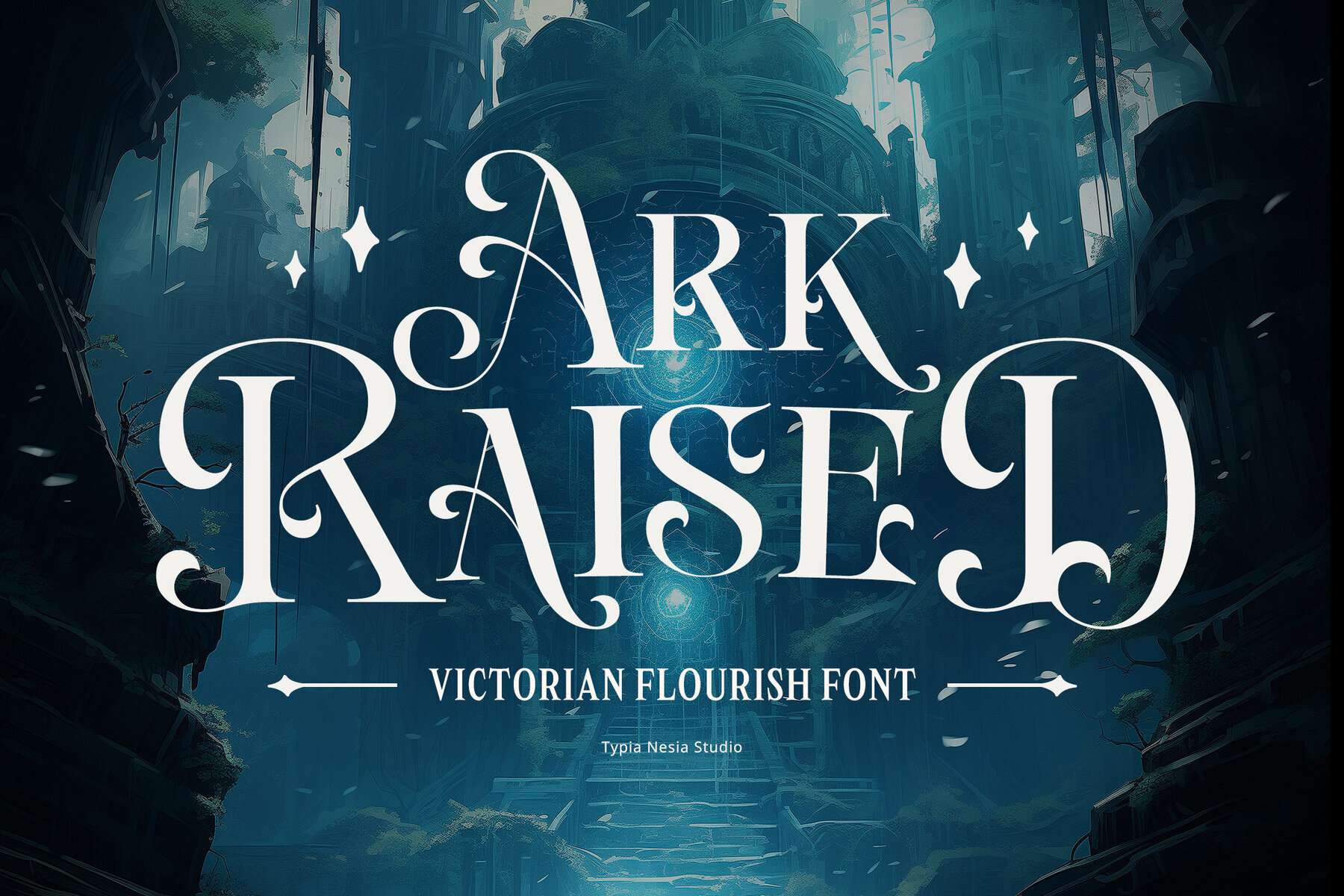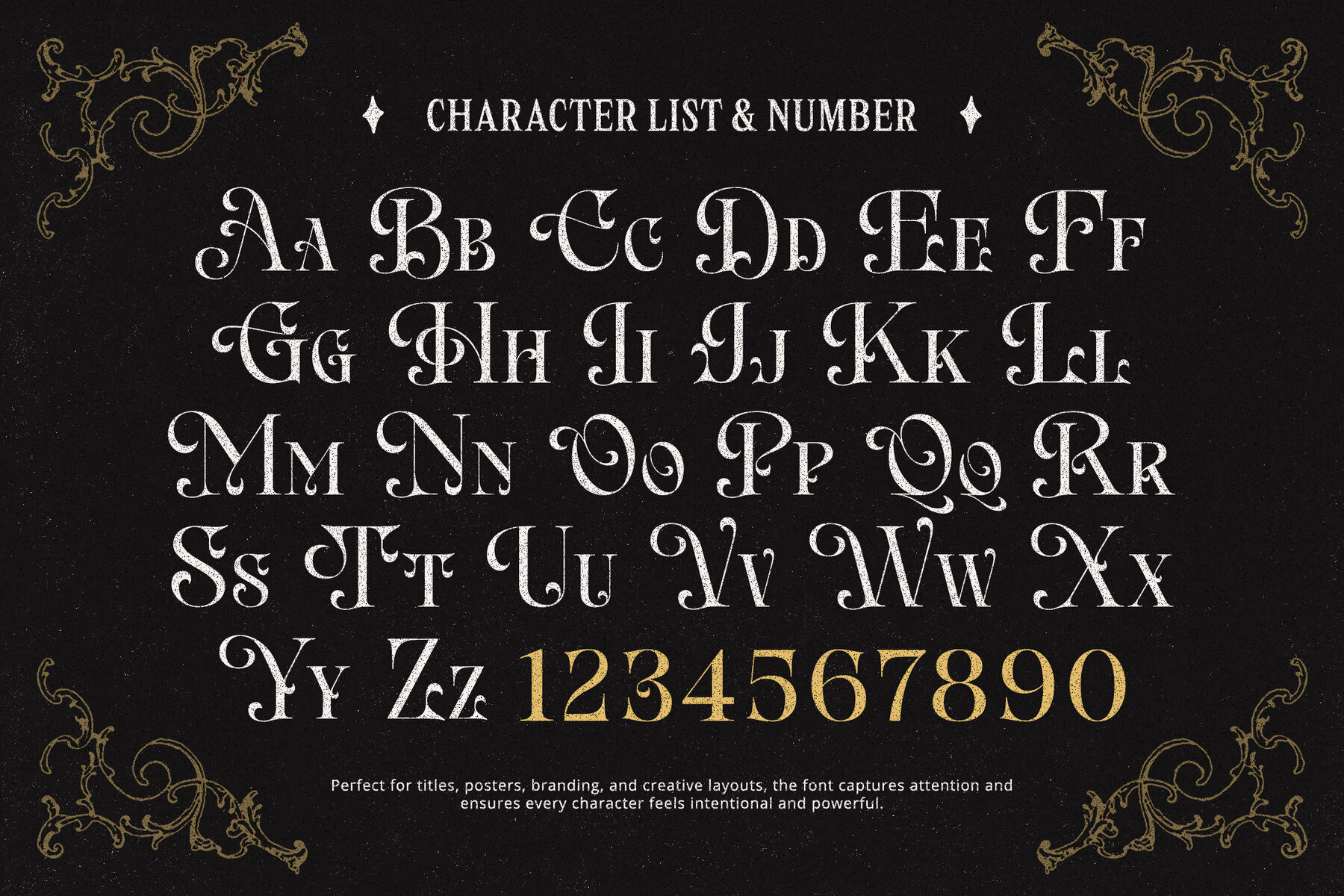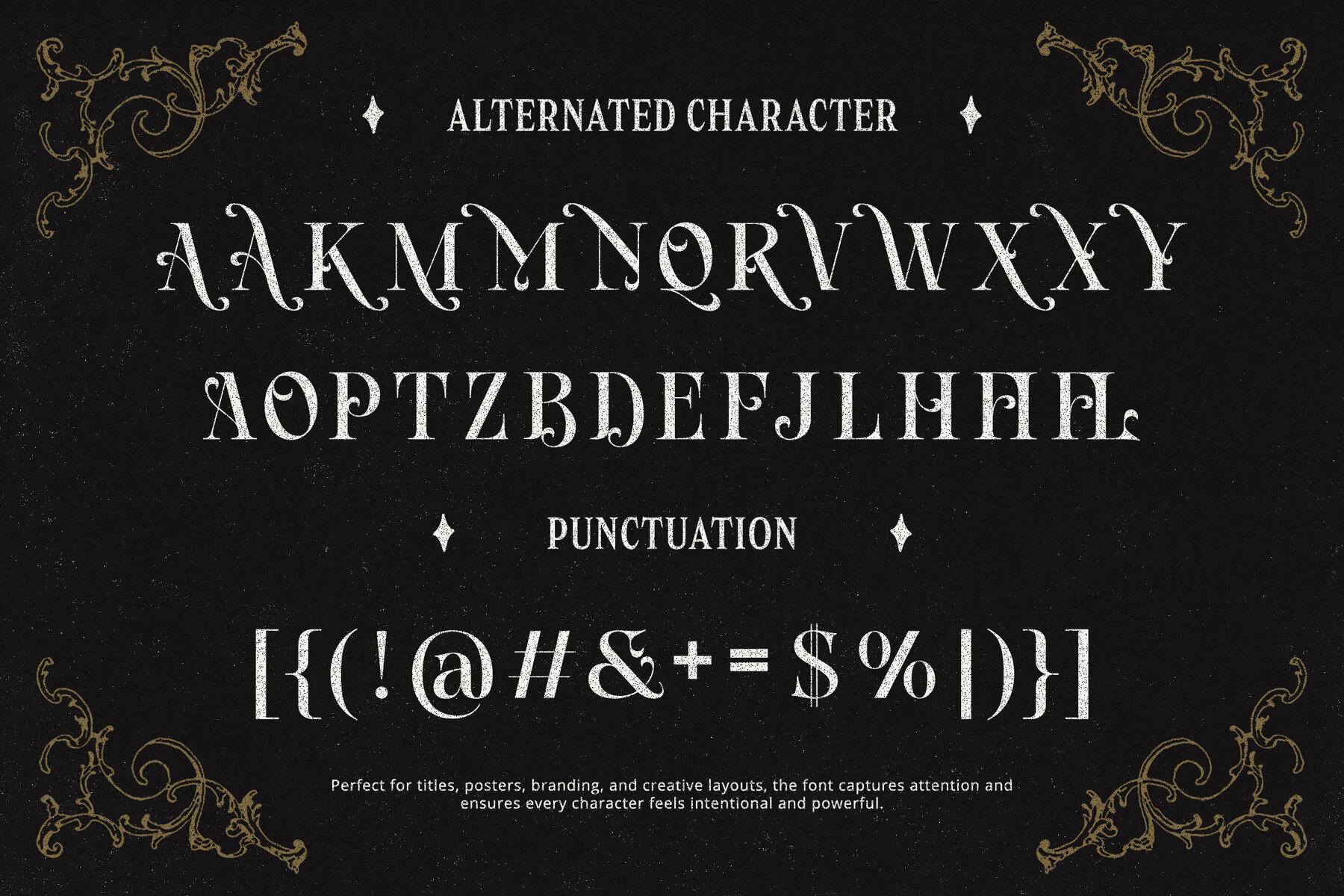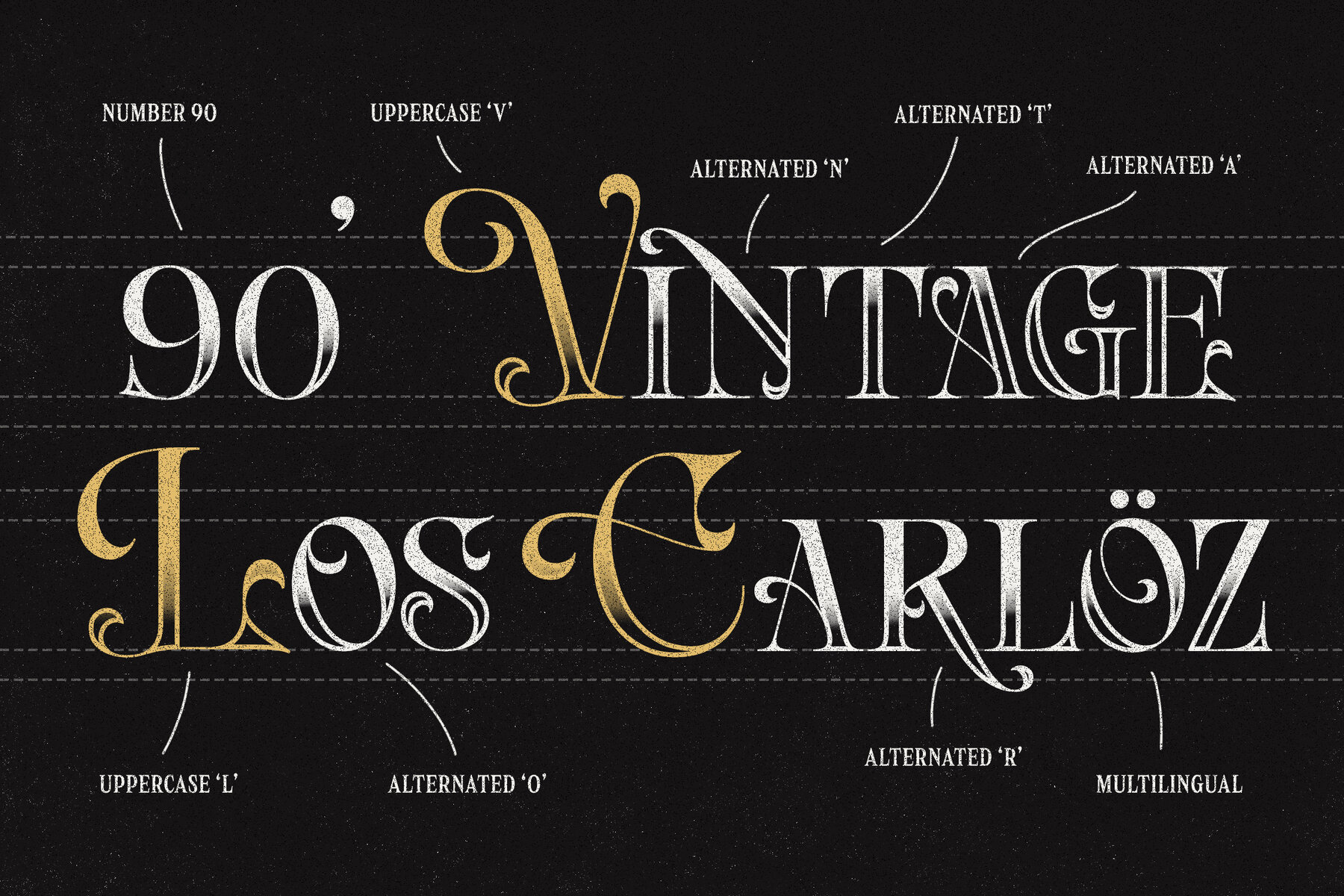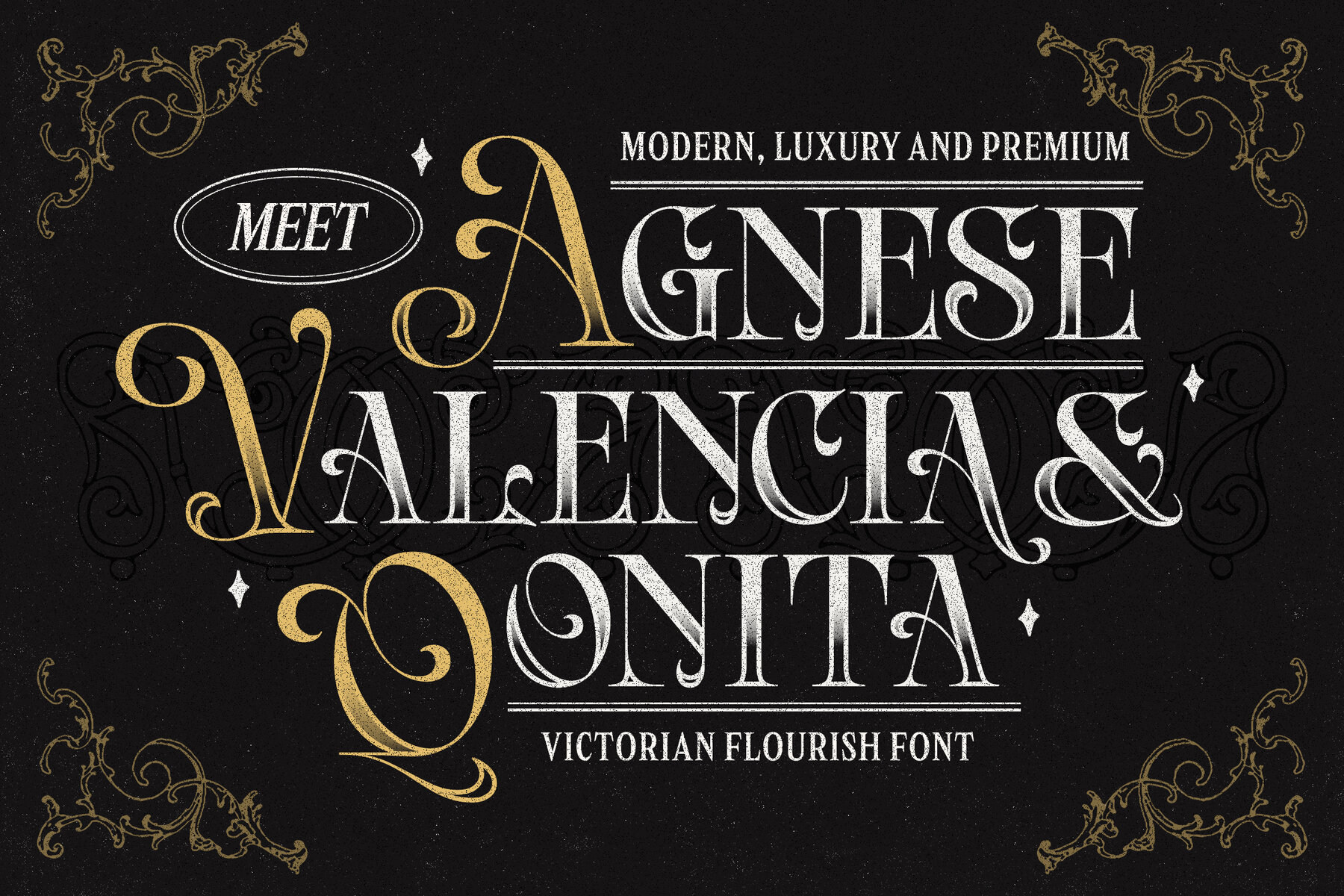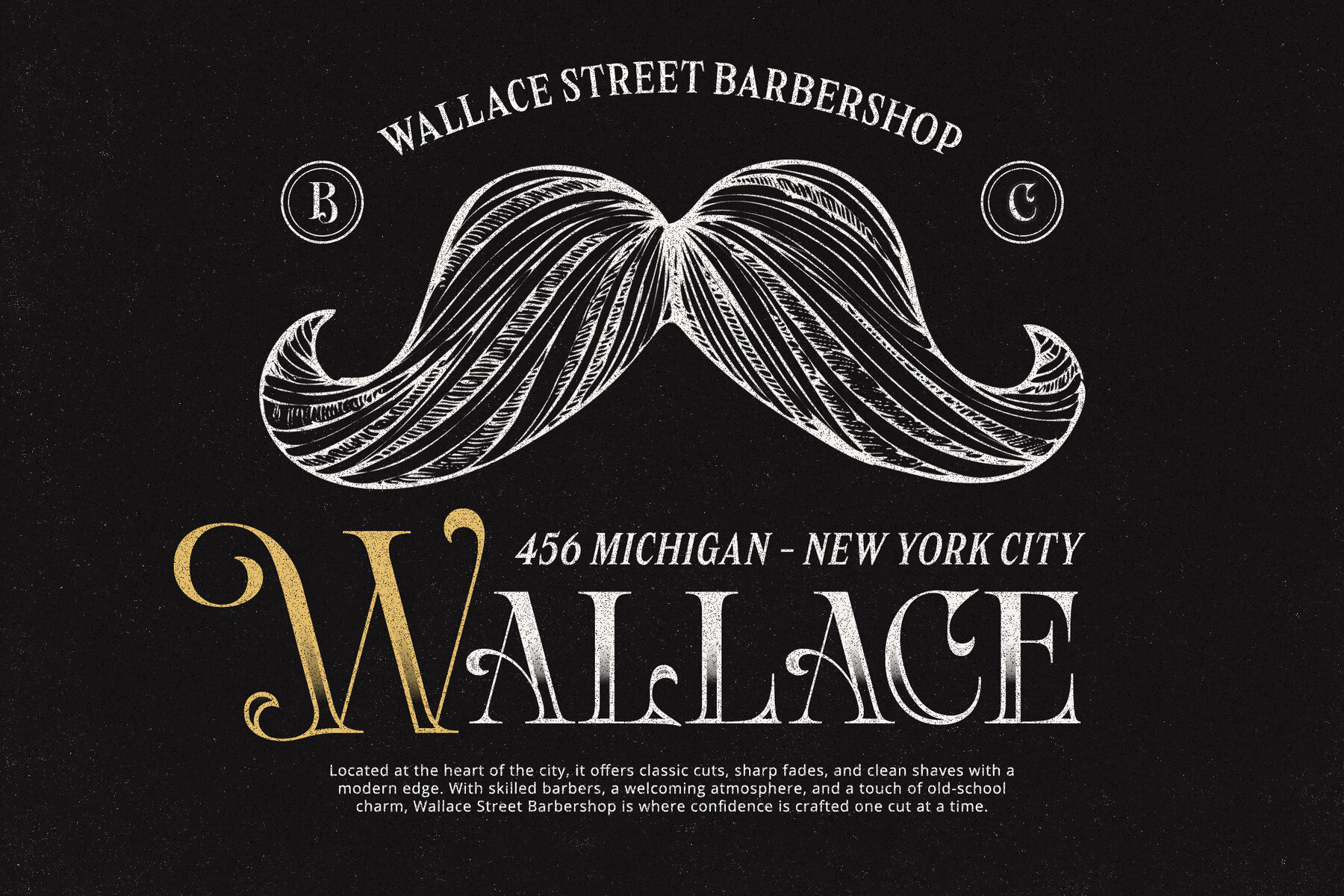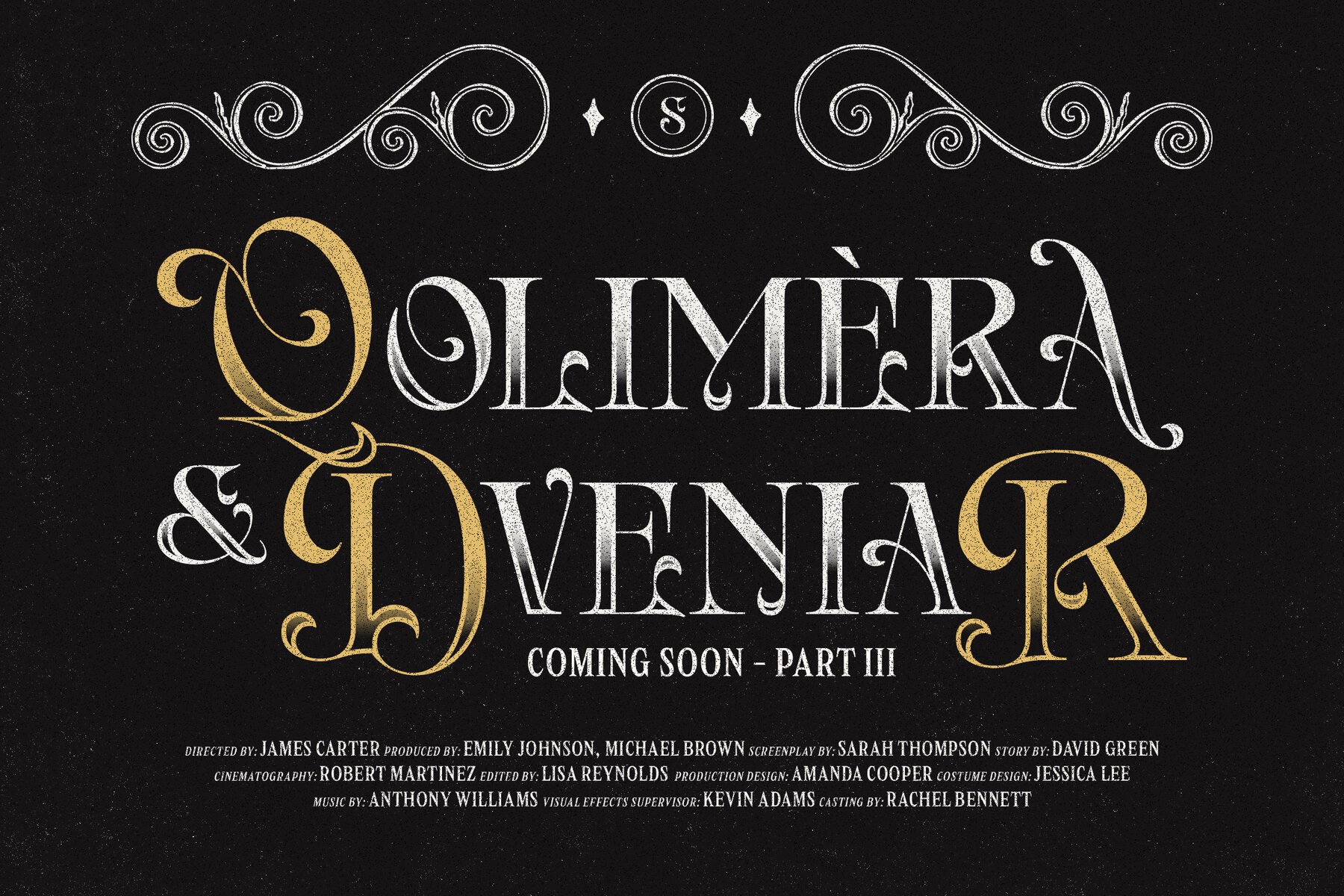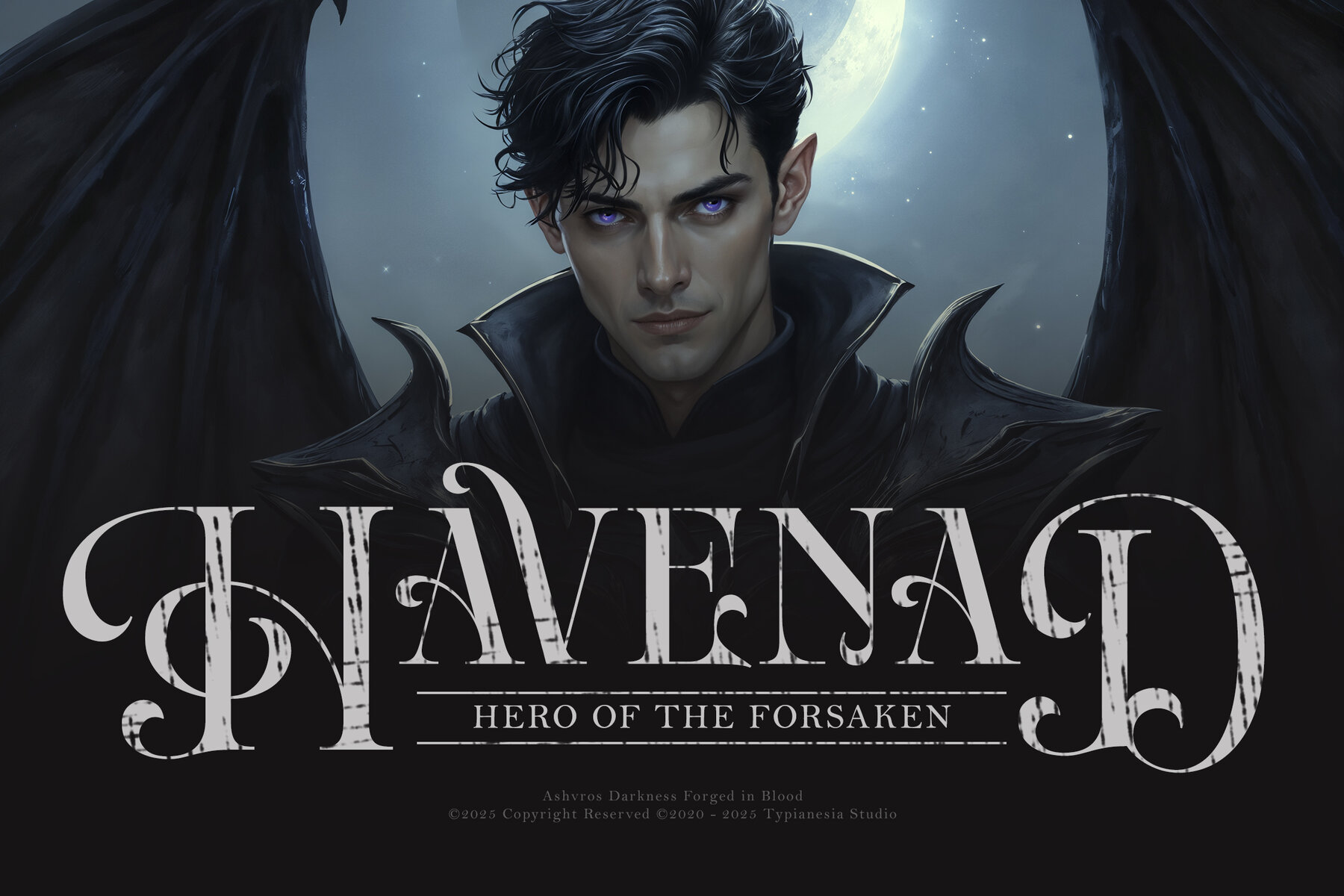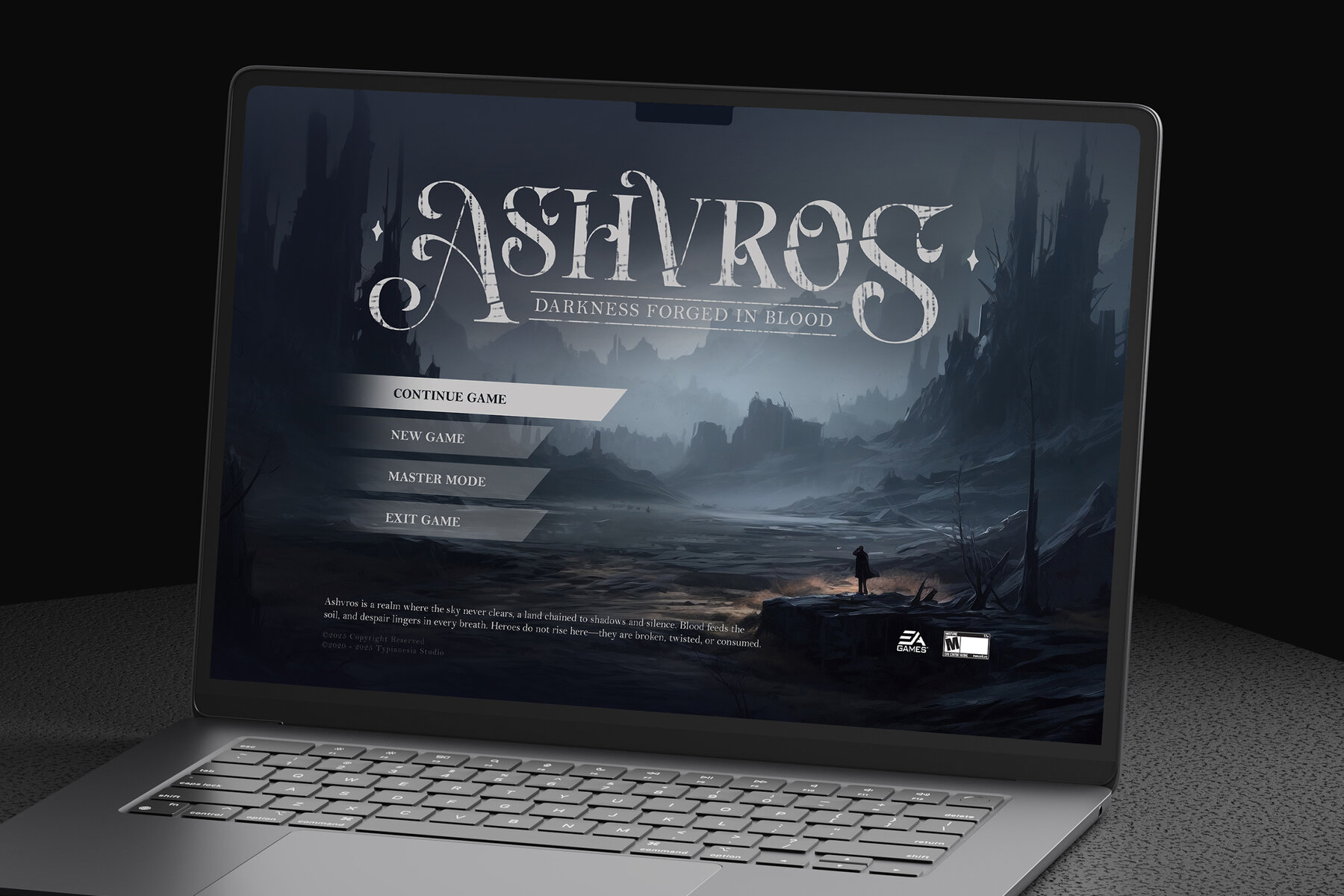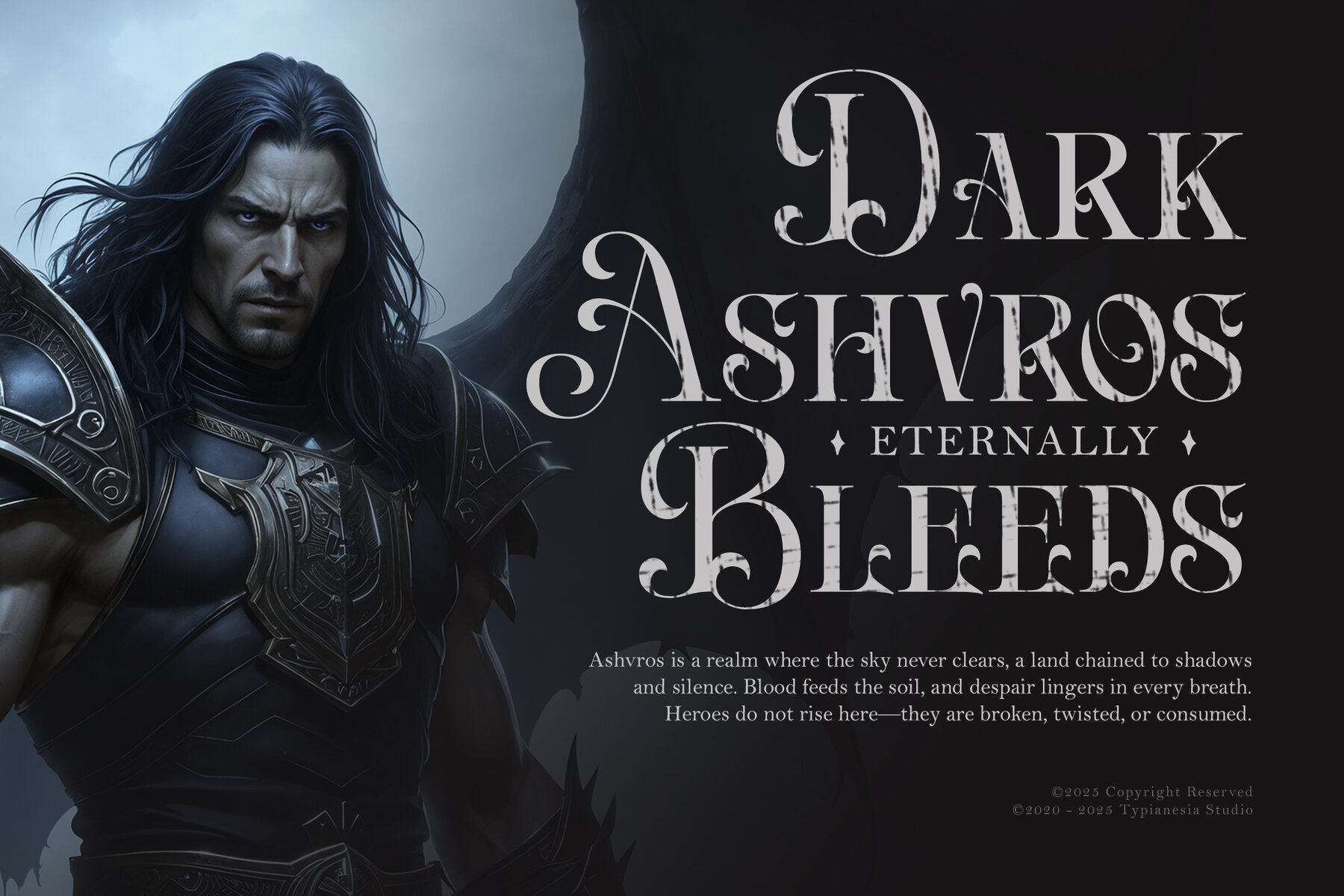
Ark Raised Font
Ark Raised Regular
Ark Raised brings Victorian elegance to your digital and print projects. This elaborate serif font showcases detailed ornamental swashes, capturing the grandeur and drama of classic dark fantasy. The sophisticated strokes and vintage flair offer a refined, luxurious look that stands out in any creative context. Ideal for high-end fantasy novel covers, video game branding, and visually rich book designs, Ark Raised delivers a strong, unforgettable presence. Its detailed design works equally well for logos, premium packaging, poster art, and other projects where a striking, timeless impression is essential.Ark Raised Victorian Serif Font